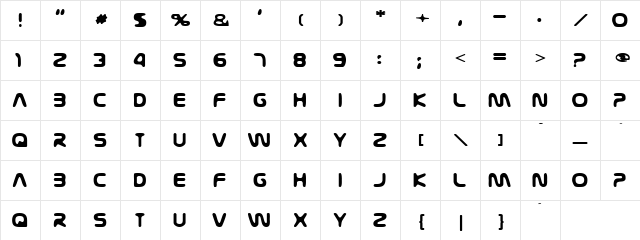
Tipu Regular
Design Context for Tipu Typeface
Tipu offers clean, dependable letterforms without strong stylistic allegiance, making it a practical choice for designers who need flexibility.